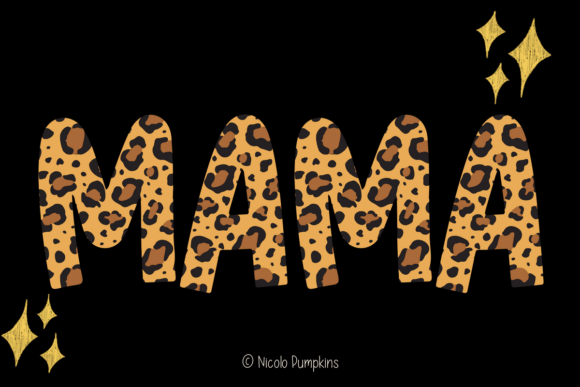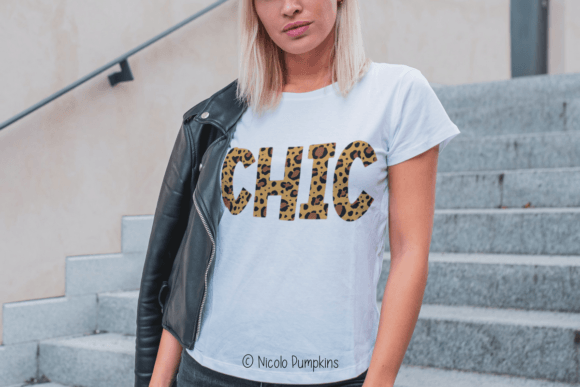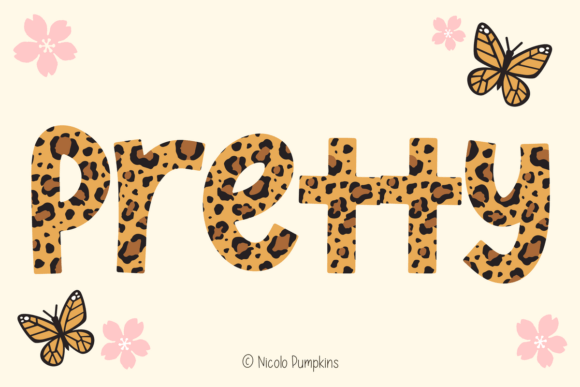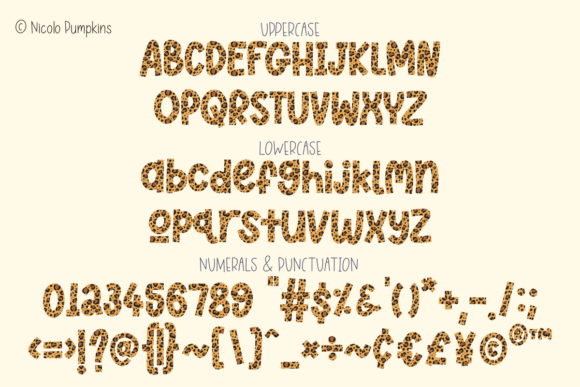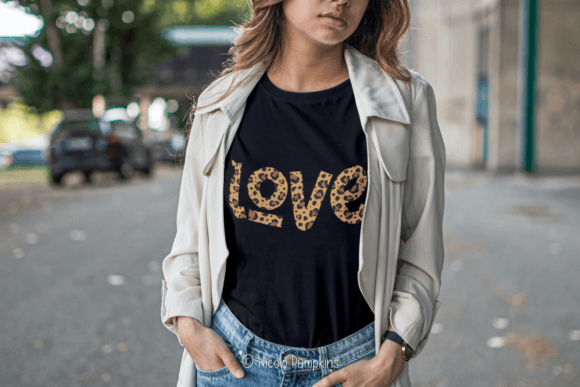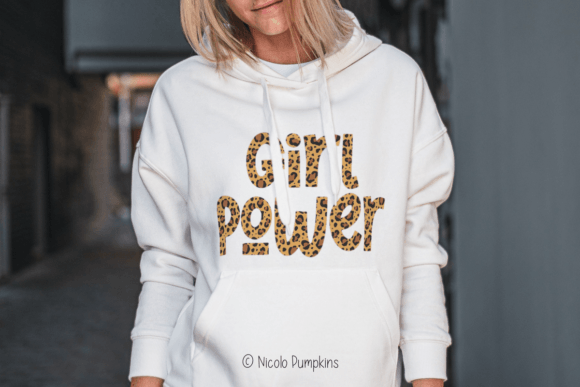
Introduction to Leopard Black Brown Font
Remember that moment when you finally get a creative spark? The idea hits you, and you can’t wait to bring it to life. As a designer, you know how important it is to have the right tools to turn your vision into a stunning reality. That’s where the Leopard Black Brown Font comes in – a chic, cute, and friendly color font that’s perfect for women’s designs.
This versatile font is ideal for a wide range of creative projects, from designing t-shirts and tote bags to creating wedding invitations and logos. With its high-quality design, it’s sure to make any idea stand out. Whether you’re working on a freelance project or need a design resource for your business, the Leopard Black Brown Font is a valuable addition to your toolkit.
Key Features of Leopard Black Brown Font
- High-quality design resource ideal for creative projects, featuring a unique leopard pattern in black and brown tones.
- Perfect for designers and artists seeking a distinctive, high-resolution font to elevate their designs.
- Leopard Black Brown Font is a unique design resource that can add a touch of sophistication and elegance to any creative project.
Honest Review: Leopard Black Brown Font
I recently stumbled upon the Leopard Black Brown Font and I must say, it’s been a game-changer for my creative project. The font’s unique combination of leopard-inspired patterns and modern elegance makes it a standout design resource.
One of the things that works well for this font is its versatility. The high quality design ensures that it can be used for a variety of purposes, from headings to body text. The transparent background also makes it easy to overlay on any image or design element.
The font’s strength lies in its ability to add a touch of sophistication to any design. The leopard pattern adds a subtle hint of playfulness, making it perfect for projects that require a mix of elegance and creativity.
However, there are a few limitations to consider. The font may not be suitable for projects that require a bold, sans-serif font. Additionally, the leopard pattern may not be to everyone’s taste.
- What works well: High quality design, versatile, transparent background
- Limitations: Not suitable for bold, sans-serif projects, leopard pattern may not be to everyone’s taste
Overall, I’m thoroughly impressed with the Leopard Black Brown Font. It’s a great addition to any designer’s toolkit and can be a valuable resource for any creative project.
Leopard Black Brown Font
Tips and Use Cases
The Leopard Black Brown Font is a versatile design resource that can be used in a variety of creative projects. Some common use cases include:
- Creating a logo for a business or brand
- Designing a brochure or flyer
- Creating a presentation for a conference or meeting
When using the Leopard Black Brown Font, be sure to adjust the size and color to get the most out of it. You can also combine it with other fonts and design elements to create a unique and eye-catching design.